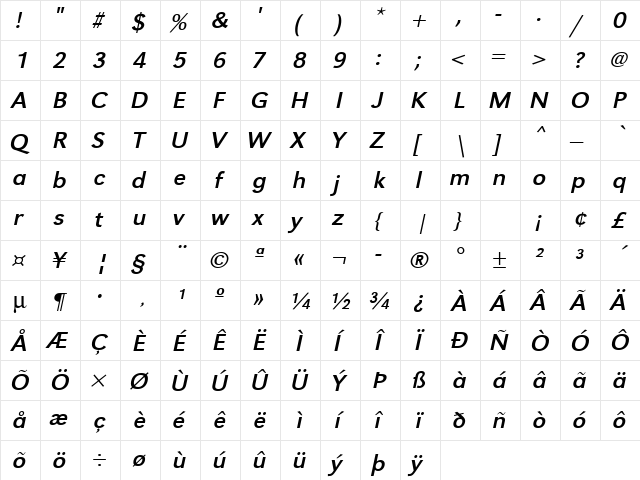
URWGroteskTWid Oblique
Design Context for URWGroteskTWid Typeface
URWGroteskTWid has the quiet confidence of well-executed sans-serif typography: versatile, unobtrusive, and dependable at any size. The dynamic lean of this cut emphasises speed and emphasis in any layout.
Font Pairing: Works well alongside a characterful serif or display font that can carry the expressive load while URWGroteskTWid handles the functional copy.
Pro Tip: Pair URWGroteskTWid with a display or serif font for headlines — its neutral character makes it an excellent supporting player in complex typographic systems.